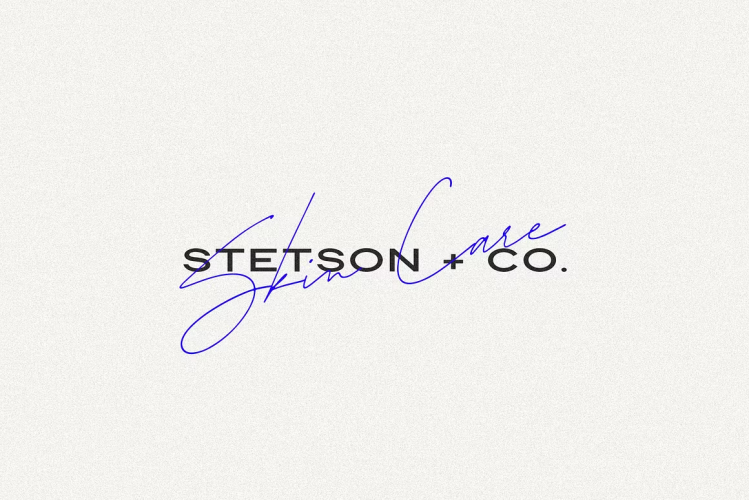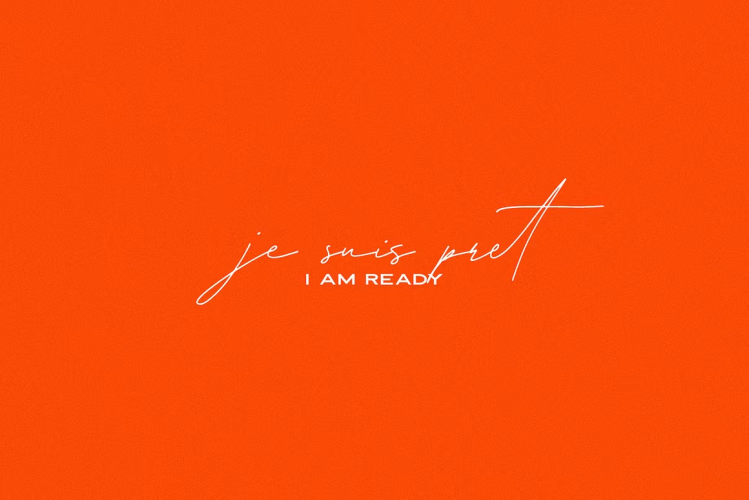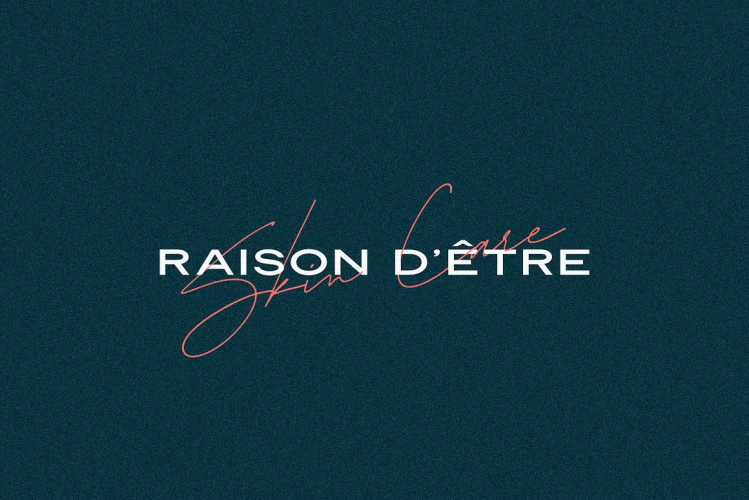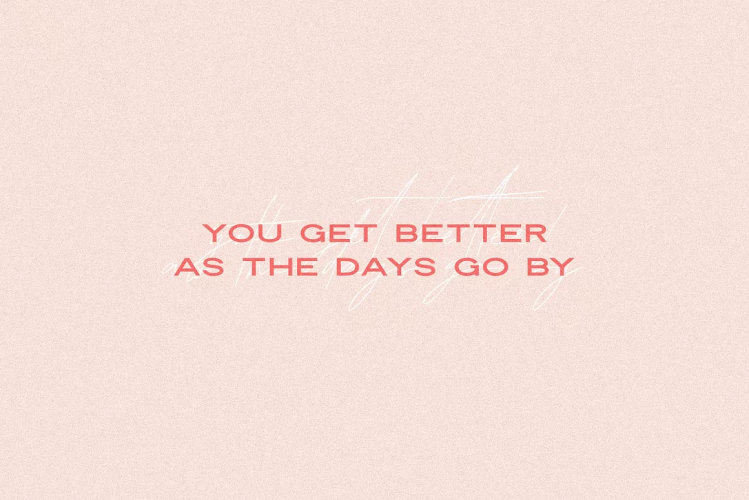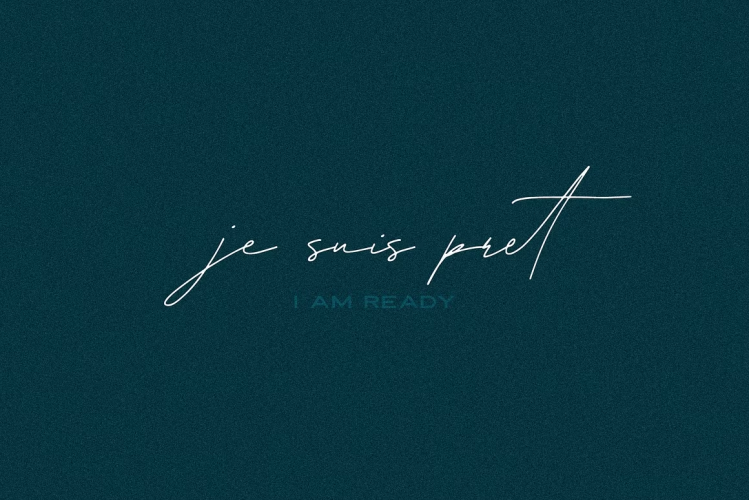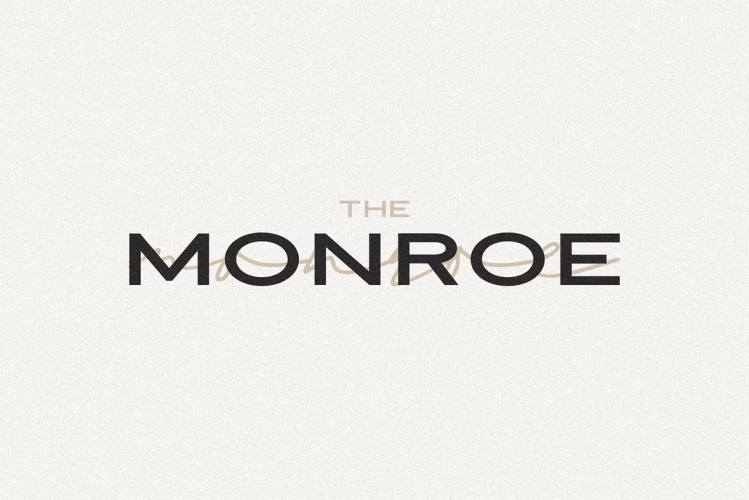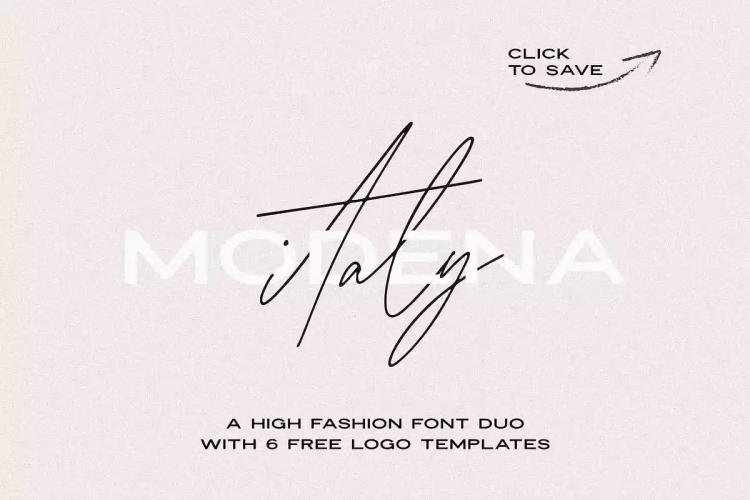
Modena Font
Modena is a beautiful high-fashion font duo that makes for gorgeous logos, posters, wedding invitations, blog posts, social media, and more!
I love using them together with layer masks in Photoshop, so it looks like the script is running through the lines of the sans serif. The Sans looks stunning with tracking set to 220, which usually falls at 0!
Modena Script includes over 50 ligatures to make everything look hand-done and alternates for each letter.
Modena Font is a Script And Handwritten font that brings a professional and versatile look to your projects. Modena is a beautiful high-fashion font duo that makes for gorgeous logos, posters, wedding invitations, blog posts, social media, and more!.